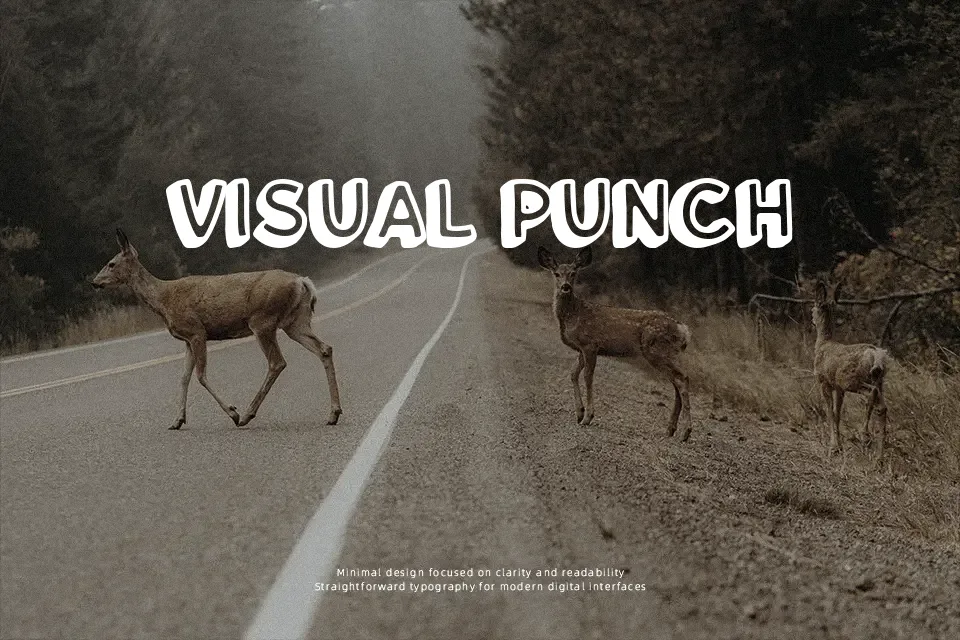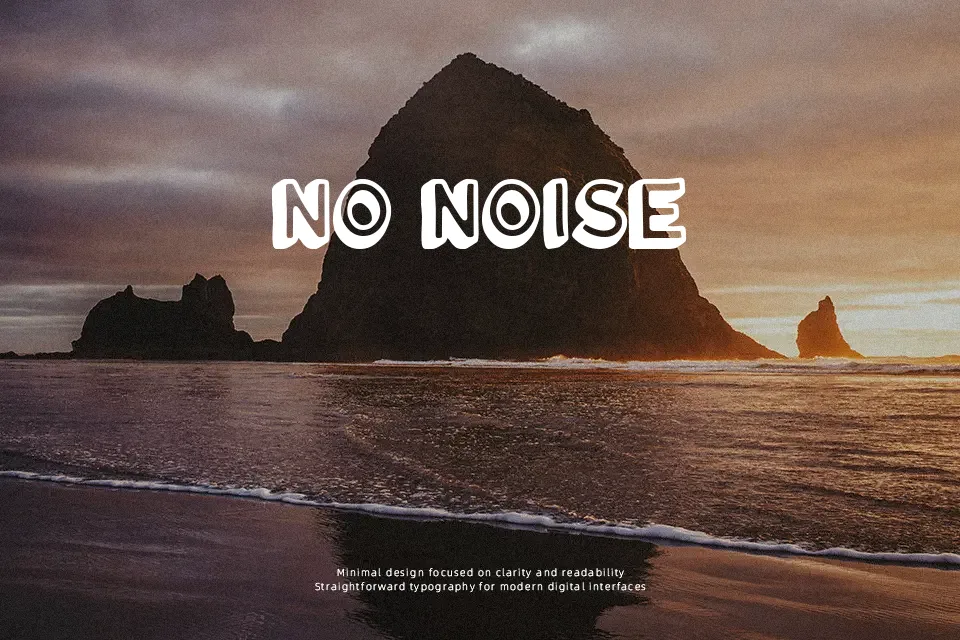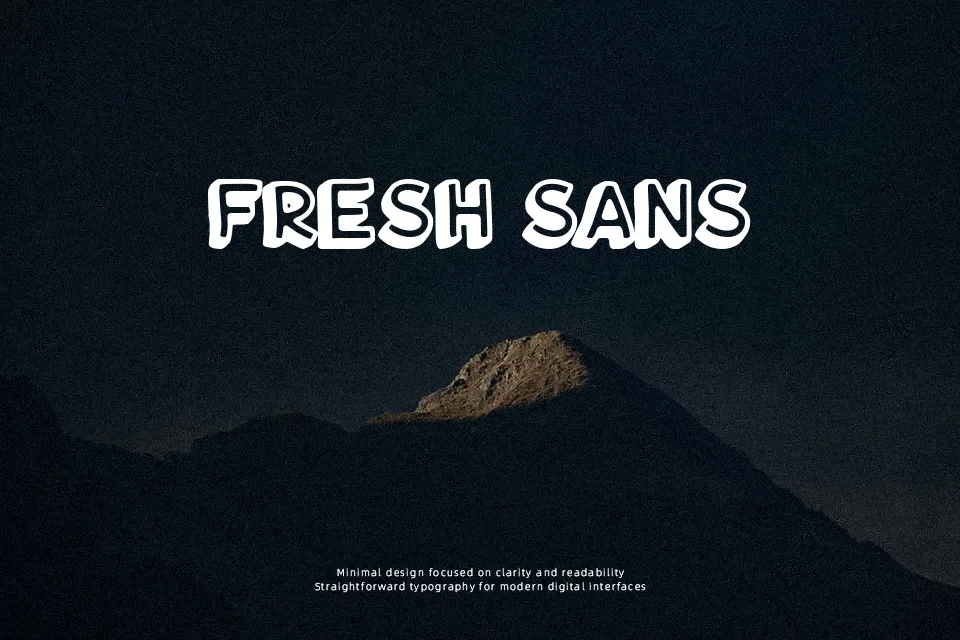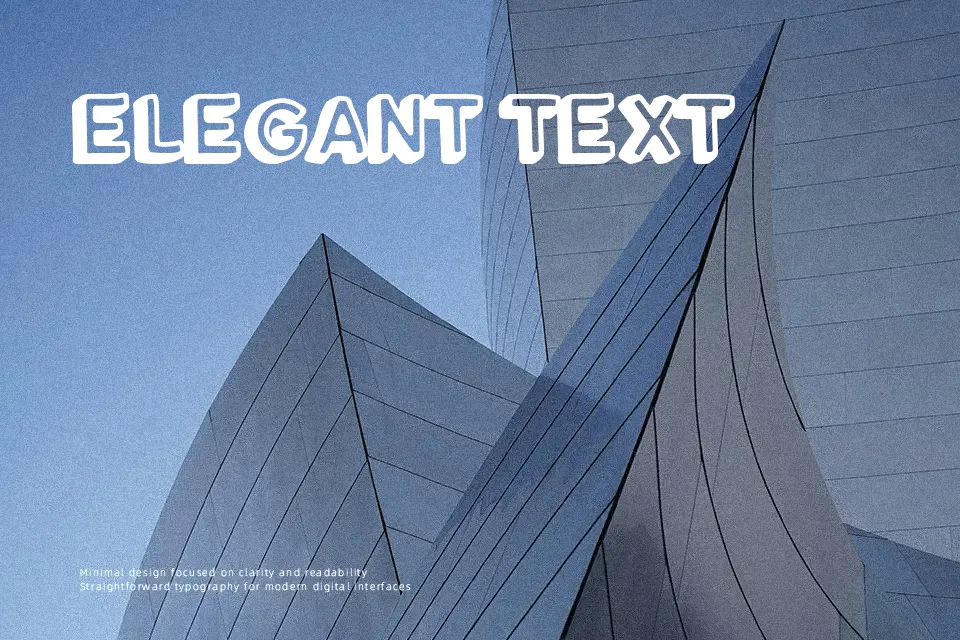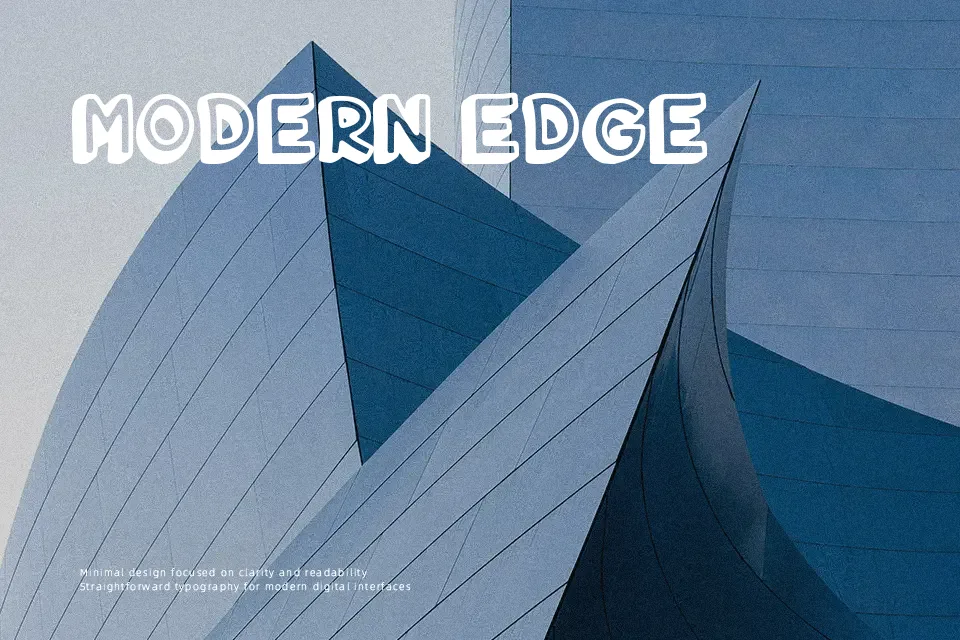
Schoolgirls Font
Schoolgirls Font presents a lively cartoon display aesthetic defined by thick, hand-drawn stroke structures, soft outer edges, and solid internal weight. The uppercase characters maintain generous proportions with slightly irregular vertical stems, while the balanced spacing preserves shape distinction across compact phrases. In large headline applications and youth-oriented packaging, the letterforms establish immediate focal presence and cheerful energy. However, the heavy density and pronounced decorative silhouette significantly reduce reading comfort in continuous paragraphs or small-scale body copy. For prominent banner text and creative badge graphics, this typeface offers reliable visual weight that remains punchy and effortlessly legible across various print and digital formats.
Best For: children’s book titles,cartoon posters,playful product packaging,merchandise graphics
Not Ideal For: long paragraph text,corporate reports,technical manuals,small body copy
Perfect for advertising, headline, and kids, with a bold and cartoon style.